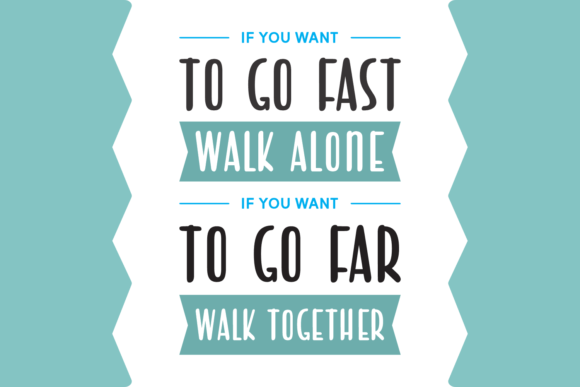
Introduction to Polite Remind Font
That’s where the Polite Remind Font comes in – a stunning, elegant font that exudes a sense of charm and sophistication. Whether you’re working on a wedding invitation, a thank you card, or a logo for a new business, this font is sure to add a touch of handwritten elegance to your design. And the best part? It’s available for free download, complete with a transparent background, making it the perfect addition to any creative project.
- Unique and elegant design, ideal for use in various creative projects, such as logos, typography, and branding materials.
Honest Review: Polite Remind Font
As a designer, I’m always on the lookout for high-quality design resources to elevate my creative projects. Recently, I stumbled upon the Polite Remind Font, and I must say, it’s been a pleasant discovery.
What works well about this font is its clean and minimalist design, making it perfect for a variety of applications, from headings to body text. The transparent background also gives it a nice, versatile feel that can be easily layered over different backgrounds.
However, I do have a few minor quibbles:
- ⚠️ Limited character set, which may be a concern for designers working on projects with complex typography
- ⚠️ Not as bold or dramatic as some other fonts in its class, which may not be suitable for designers seeking a more statement-making font
Overall, I’m impressed with the Polite Remind Font’s simplicity and versatility. While it may not be the most bold or dramatic font, it’s a reliable and high-quality design resource that’s perfect for a wide range of creative projects.
Design Tips
To get the most out of the Polite Remind Font, use it in a high-quality design project. You can also use it on a transparent background to create a unique and eye-catching effect. Don’t forget to customize the font size and style to ensure it complements your design.
The Polite Remind Font is perfect for any creative project that requires a high-quality, professional font. Some common use cases include business cards, brochures, and social media graphics. You can also use it in free download templates to give them a unique and professional look.